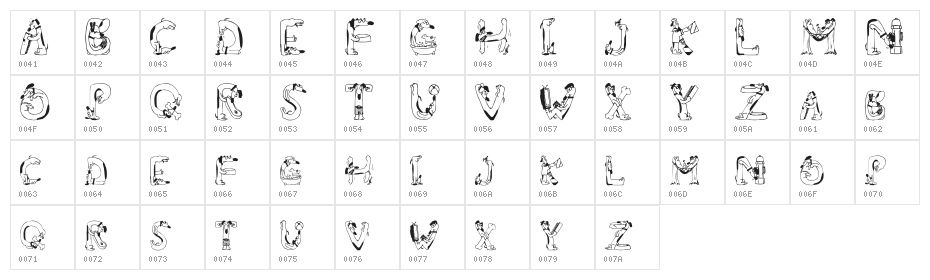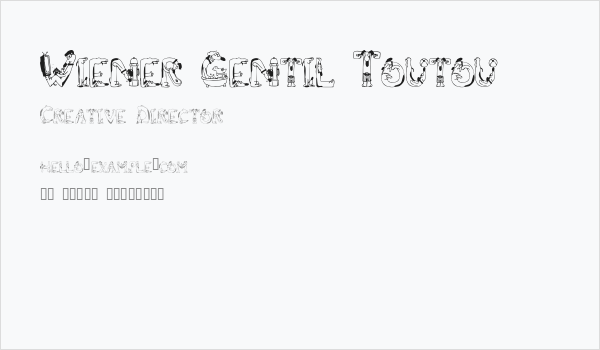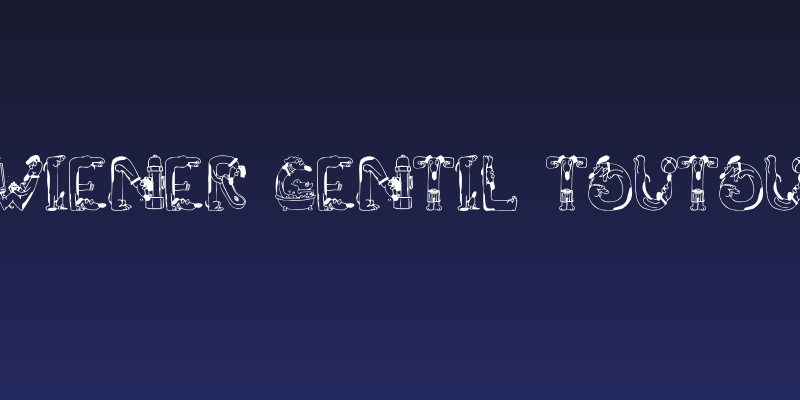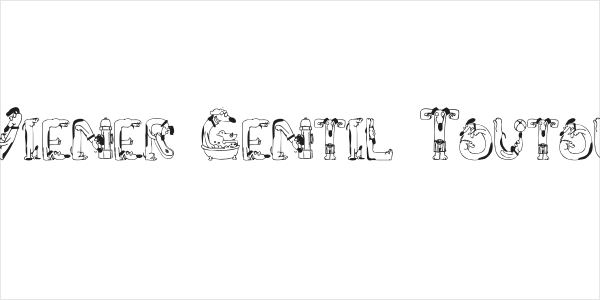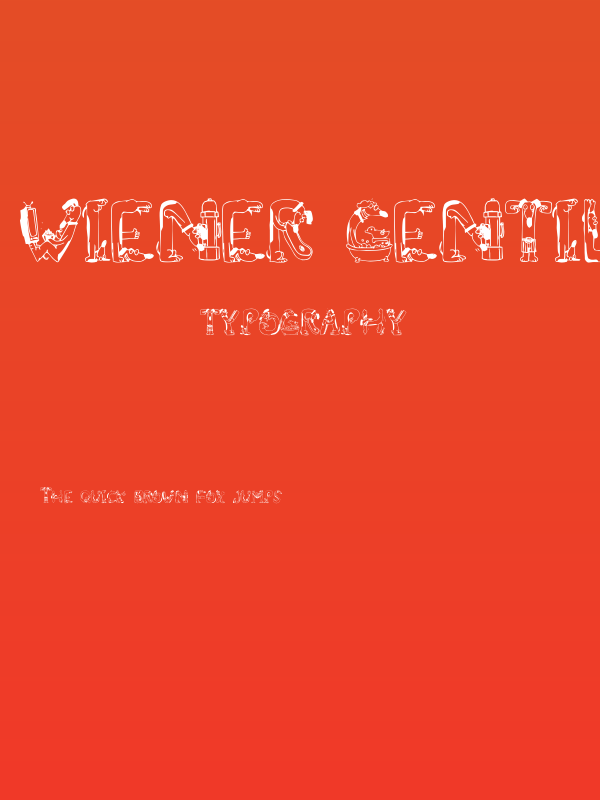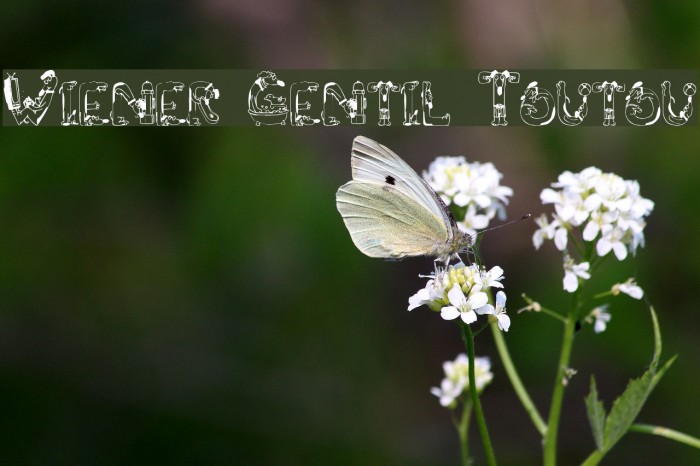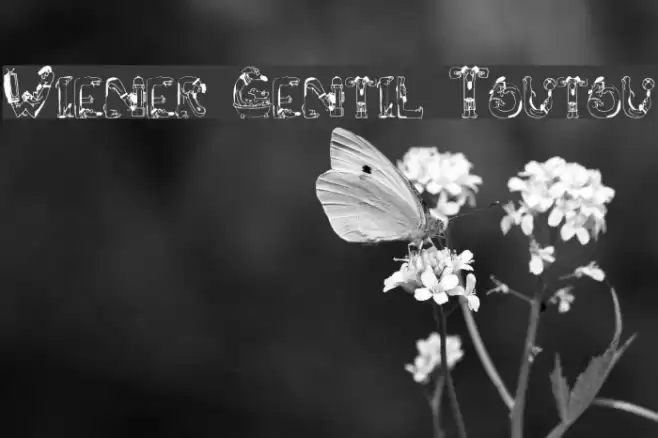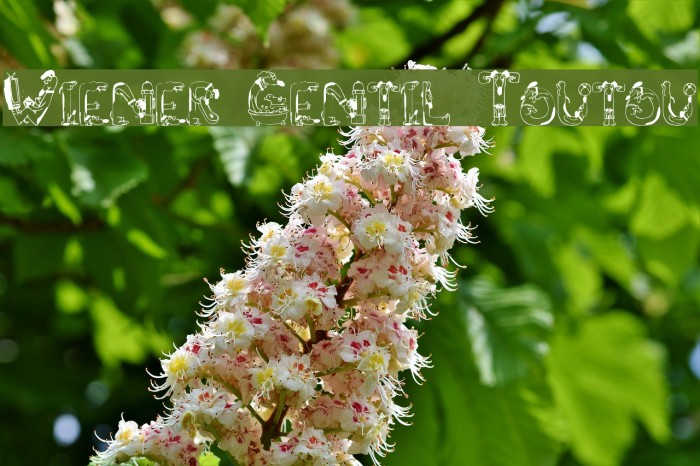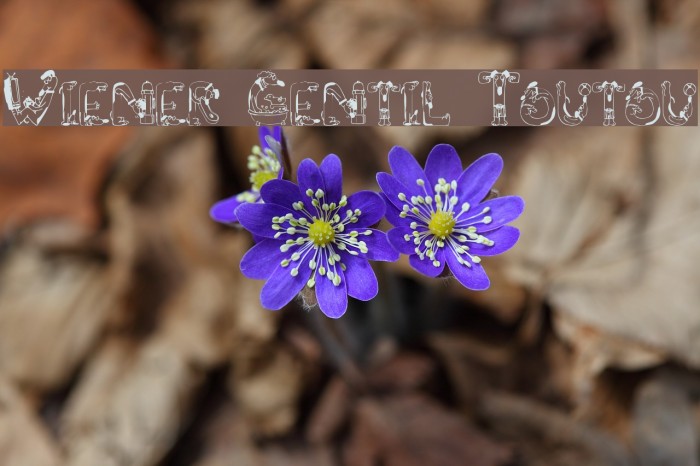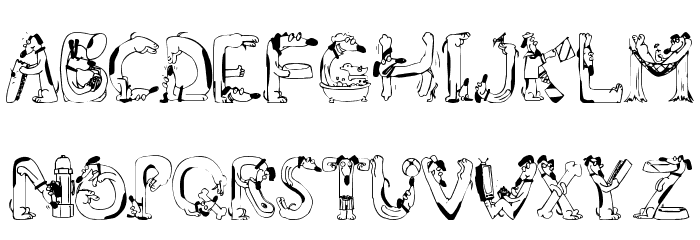
Wiener Gentil Toutou Font
Wiener Gentil Toutou Description
This playful and whimsical font features characters creatively formed by cartoon-like figures, each letter uniquely crafted with a sense of humor and charm. The design incorporates elements of animation, with each character appearing as if it is part of a lively scene. The font is highly decorative, with each letter having its own distinct personality, making it ideal for projects that require a fun and engaging visual style. The absence of numbers and special characters suggests a focus on artistic expression rather than functionality.
| Proposed Projects | Ideal for children's books, playful posters, creative branding, and any project needing a fun, animated touch. |